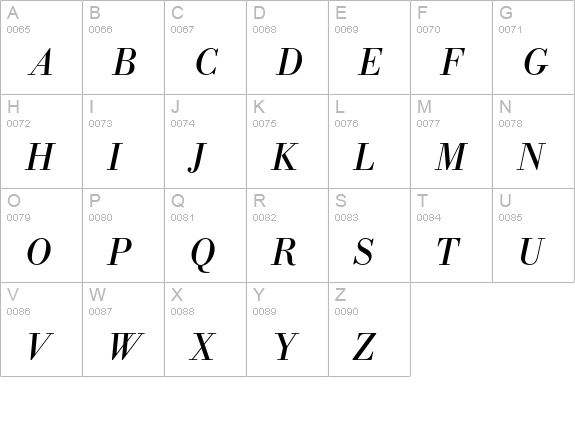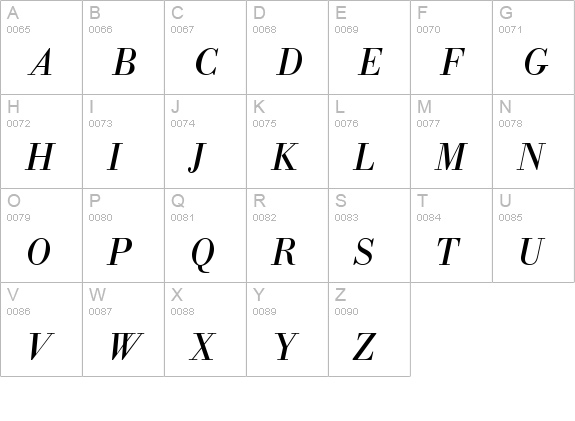
BodoniEF-RegularIta is a sophisticated and elegant font that effortlessly combines classic style with a modern twist. Its sleek italics and clean lines make it perfect for conveying a sense of refinement and luxury in your designs. This font exudes a timeless appeal that is sure to captivate the eye and elevate any project it is used in. The best part? BodoniEF-RegularIta is completely free to download at FontsMarket.com. This means you can enjoy all the beauty and versatility of this stunning font without any cost. Whether you're designing a high-end brand identity, creating stylish invitations, or crafting a polished website, BodoniEF-RegularIta is the perfect choice to add a touch of sophistication and flair to your work. Download it now and experience the elegance and charm of this exquisite typeface for yourself.